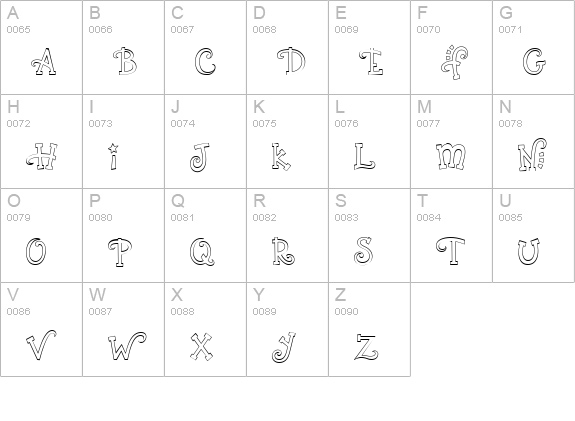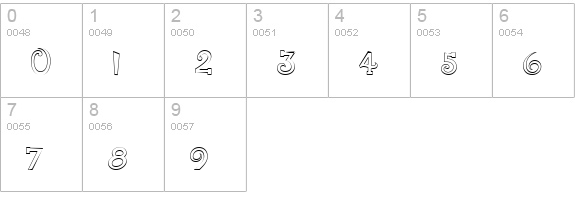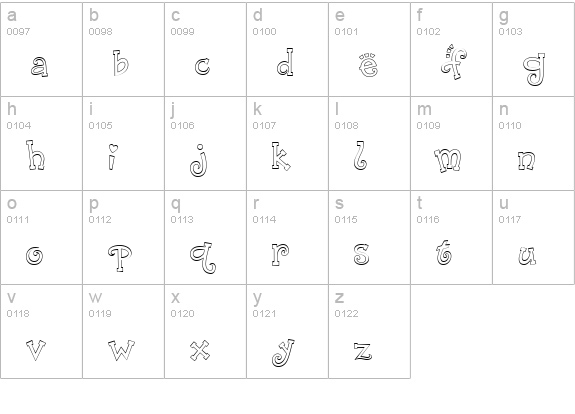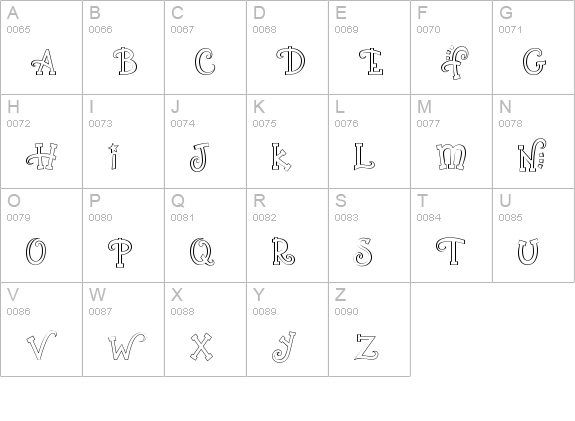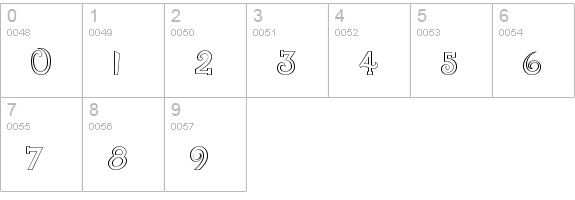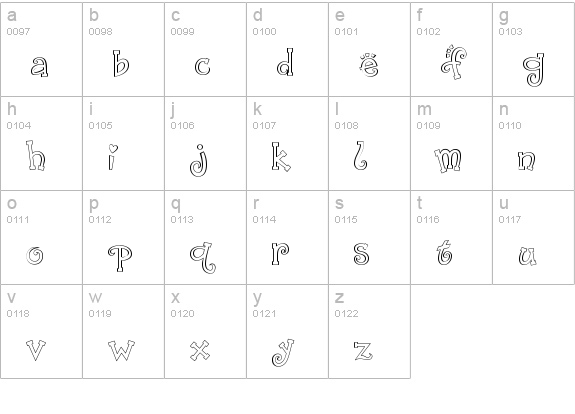
Introducing CK Funkie Fun font, a whimsical and playful typeface that is sure to bring a fun and funky vibe to your creative projects. This unique font features quirky and irregular letterforms that exude a sense of joy and creativity. Perfect for adding a touch of lightheartedness to designs such as posters, invitations, and branding materials. The best part? CK Funkie Fun font is available for free download at FontsMarket.com, making it easily accessible for all your design needs. Embrace the fun and creativity of this delightful font and watch your designs come to life with personality and charm. Let CK Funkie Fun font be your go-to choice for adding a playful and whimsical touch to your projects.